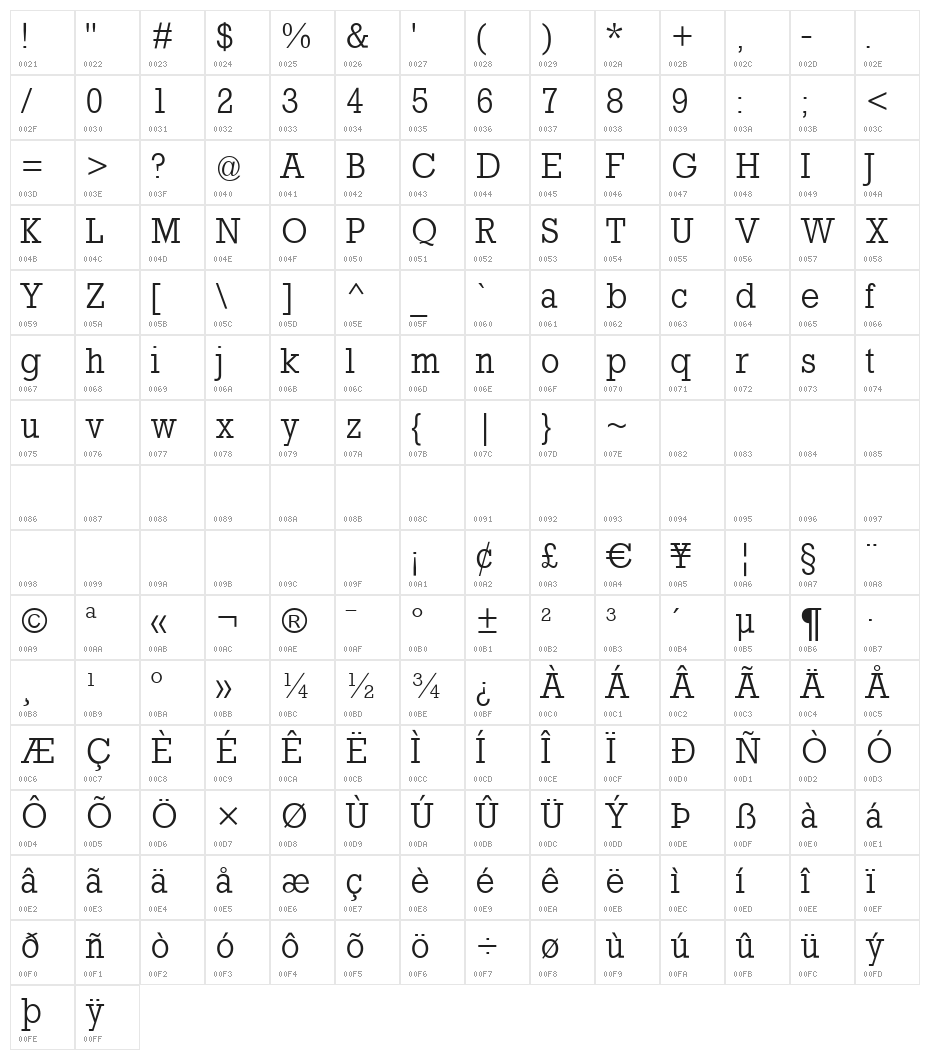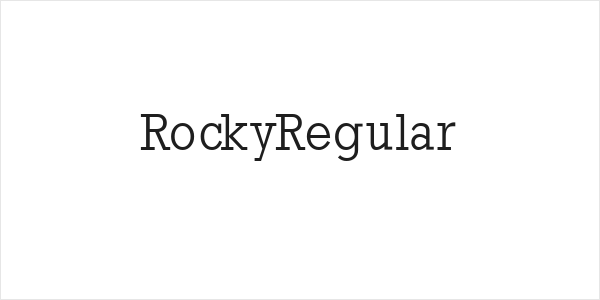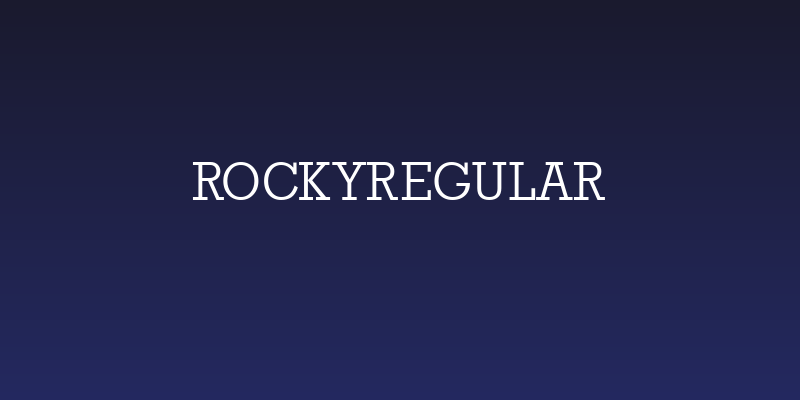
RockyRegular Font
RockyRegular Description
This font features a classic serif style with a modern twist, characterized by its clean lines and balanced proportions. The uppercase letters are bold and commanding, while the lowercase letters maintain a consistent and harmonious flow. The numerals are clear and easily distinguishable, making them suitable for a variety of applications. The special characters are well-integrated, ensuring versatility across different contexts. Overall, this font exudes a timeless elegance, making it ideal for both traditional and contemporary designs.
Overall StyleClassic
Proposed ProjectsIdeal for editorial design, branding, and print media where a touch of sophistication is desired.